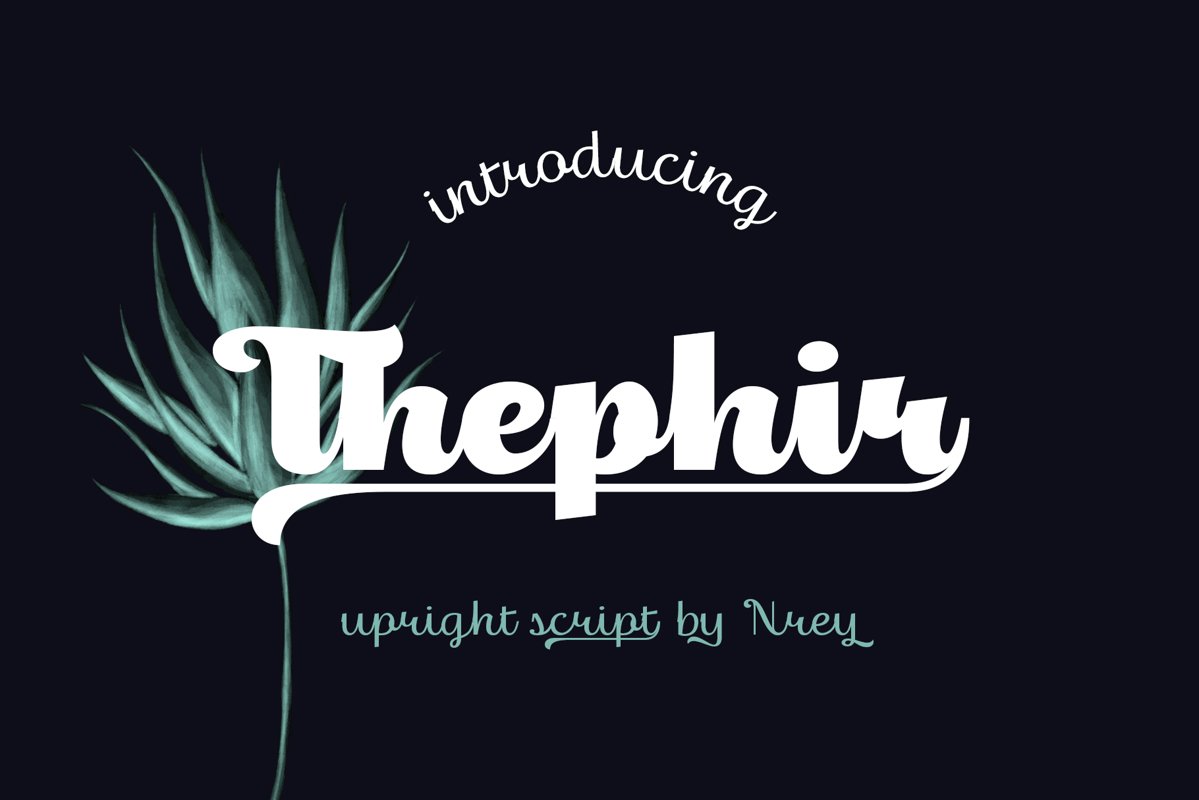
Thephir
Hi Everyone! Introducing a bold straight script - Thephir.
You can use it as a logo, badge, insignia, packaging, headline, poster, apparel, greeting card, and wedding invitation.
It have supporting for many european languages and perfect cyrillic!